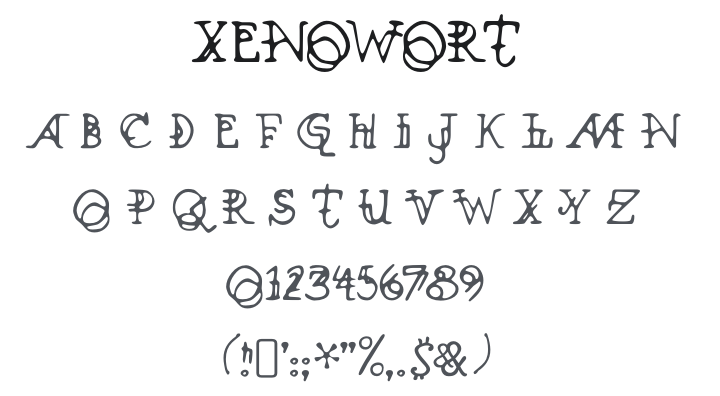
Xenowort Font
About Xenowort
Xenowort is a bold, chaotic display serif typeface where Roman letterforms are overwhelmed by tangled loops, spirals, and decorative curlicues crammed into every stroke — creating a gloriously messy, distorted character that feels like medieval manuscript lettering gone deliriously wrong. The result is ornate yet unhinged. Perfect for fantasy game titles, occult designs, dark editorial headlines, and any project needing elaborately chaotic, eye-catching typographic madness.